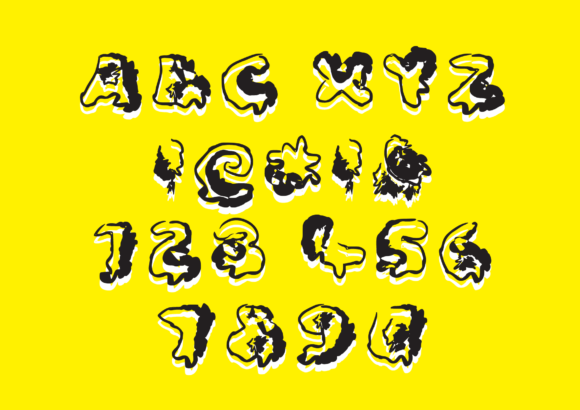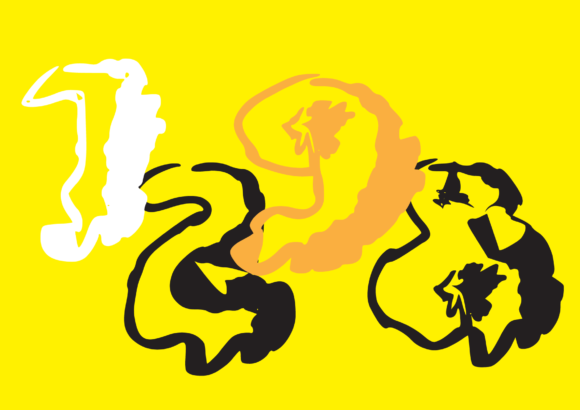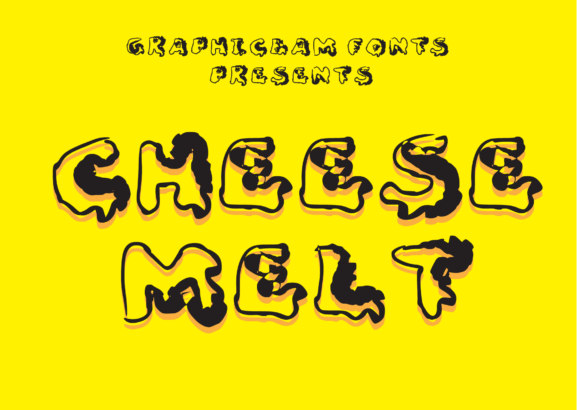
Introducing Cheese Melt Font: The Fun and Friendly Display Font for Your Creative Projects
Are you looking for a font that can add a playful and lovely touch to your designs? Look no further than Cheese Melt Font! This fun and friendly display font is perfect for a variety of creative projects, from cartoon-related designs to children’s games and more. In this article, we’ll take a closer look at Cheese Melt Font and explore its features, benefits, and uses.
What is Cheese Melt Font?
Cheese Melt Font is a display font designed to bring a smile to your face. Its fun and quirky style makes it perfect for projects that require a playful and lighthearted touch. The font features rounded edges, soft curves, and a friendly demeanor that will make your designs stand out from the crowd.
Key Features of Cheese Melt Font
- Fun and playful style: Cheese Melt Font is designed to be fun and engaging, making it perfect for projects that require a playful touch.
- Rounded edges and soft curves: The font features rounded edges and soft curves that give it a friendly and approachable feel.
- Highly legible: Despite its playful style, Cheese Melt Font is highly legible, making it easy to read and understand.
- Multilingual support: The font supports multiple languages, making it a great choice for projects that require international appeal.
Benefits of Using Cheese Melt Font
So, why should you choose Cheese Melt Font for your projects? Here are just a few benefits of using this fun and friendly display font:
- Adds a playful touch: Cheese Melt Font can add a playful and lighthearted touch to your designs, making them more engaging and fun.
- Perfect for kids’ projects: The font’s playful style makes it perfect for projects aimed at children, such as games, apps, and educational materials.
- Great for cartoon-related designs: Cheese Melt Font is a great choice for cartoon-related designs, such as animated movies, TV shows, and comics.
Use Cases for Cheese Melt Font
So, what can you use Cheese Melt Font for? Here are just a few ideas to get you started:
- Children’s games and apps: Cheese Melt Font is perfect for kids’ games and apps that require a fun and playful touch.
- Cartoon-related designs: The font is a great choice for cartoon-related designs, such as animated movies, TV shows, and comics.
- Educational materials: Cheese Melt Font can be used for educational materials, such as textbooks, workbooks, and activity sheets.
- Branding and packaging: The font can be used for branding and packaging projects that require a playful and friendly touch.
Tips for Using Cheese Melt Font
Here are a few tips for using Cheese Melt Font in your projects:
- Use it for headlines and titles: Cheese Melt Font is perfect for headlines and titles, where its playful style can really shine.
- Experiment with different colors: The font looks great in a variety of colors, so don’t be afraid to experiment and find the perfect hue for your project.
- Pair it with other fonts: Cheese Melt Font can be paired with other fonts to create a unique and interesting look.
In conclusion, Cheese Melt Font is a fun and friendly display font that’s perfect for a variety of creative projects. Its playful style, rounded edges, and soft curves make it a great choice for projects that require a lovely touch. Whether you’re working on a children’s game, a cartoon-related design, or a branding project, Cheese Melt Font is sure to bring a smile to your face. So why not give it a try and see what amazing creations you can come up with?